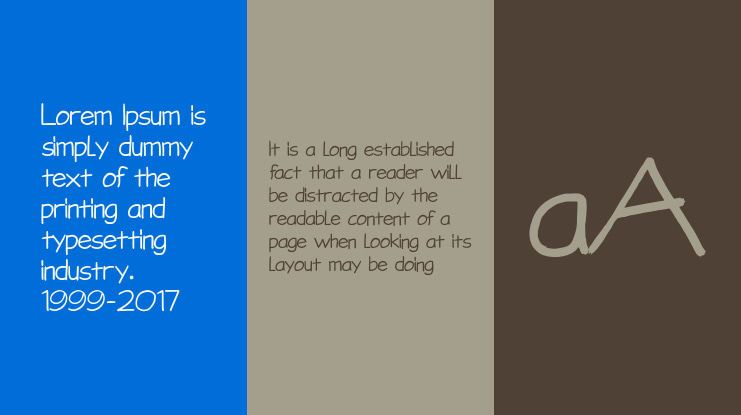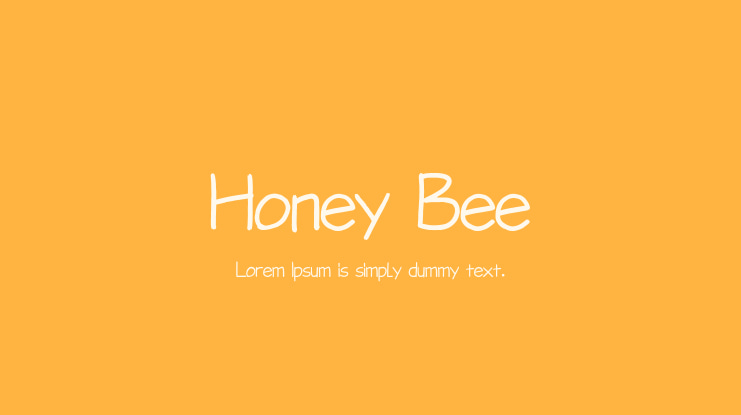
Honey Bee Font
Honey Bee is a cute and neat handwritten font. Its sweet and full of life style makes this font a wonderful choice for brightening up your designs.